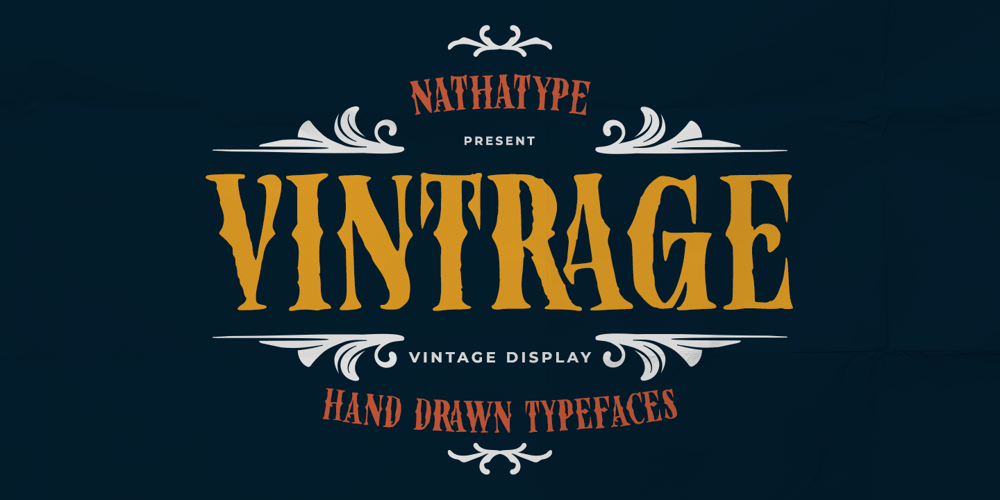
Vintrage
Vintrage font
Vintrage Font Family was designed by Donis Miftahudin and published by Nathatype. Vintrage contains 1 styles and family package options. Vintrage is an uppercases display font with vintage charm. Each letter stands tall and proud, conveying a sense of strength and authority. The constant proportions ensure readability. The edges of each letter have a slightly rough and imperfect quality, evoking the look of vintage letterpress printing. Vintrage fits in headlines, logos, branding materials, and more. In addition, beautiful ornaments are included as a bonus.